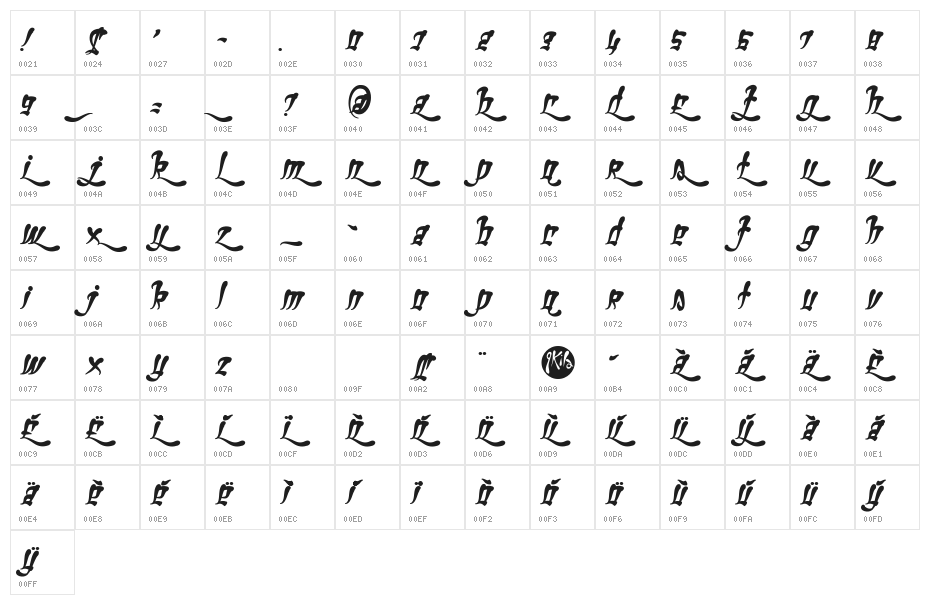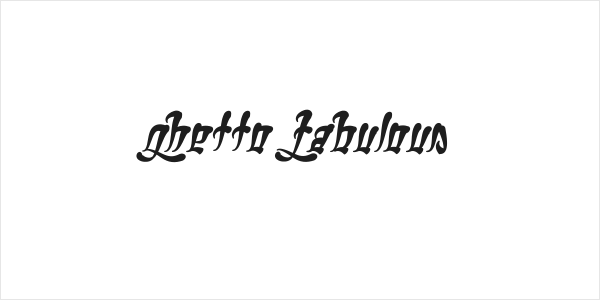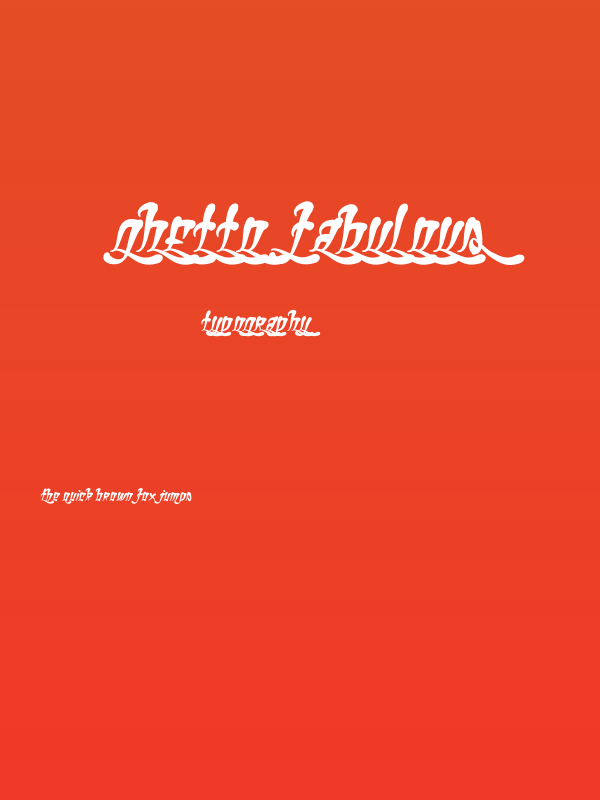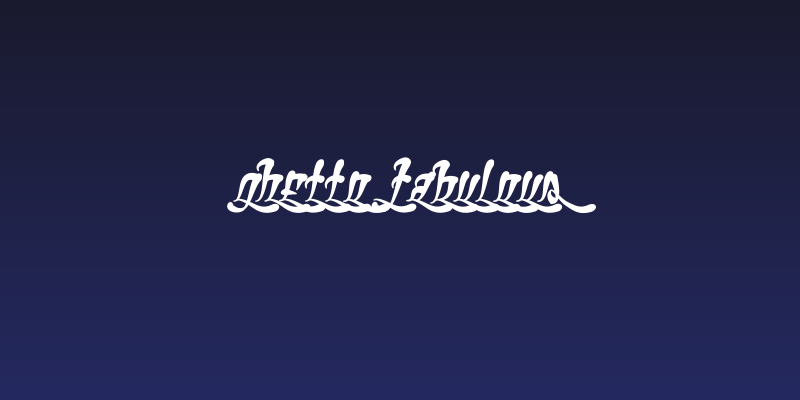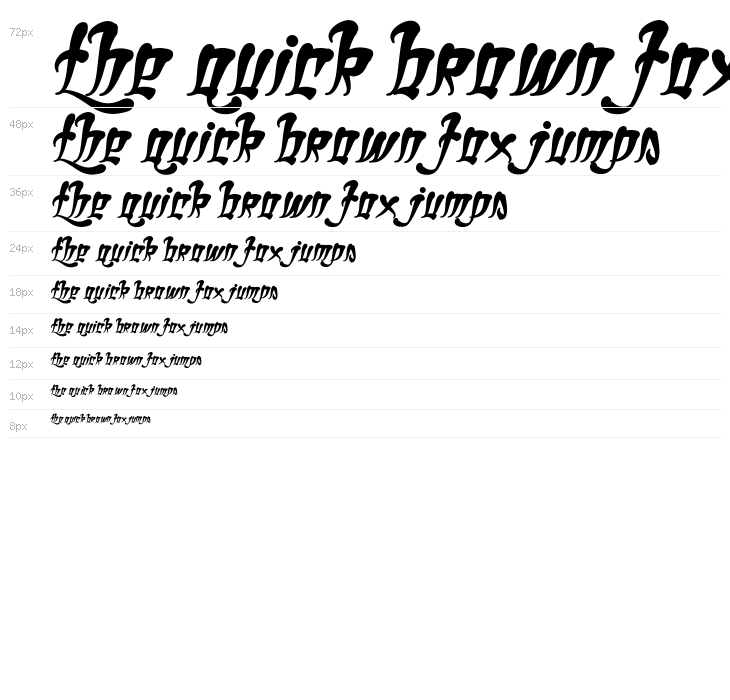
Ghetto Fabulous Font
Ghetto Fabulous Description
This font exudes a bold and dramatic flair, characterized by its intricate and flowing script style. The letters are heavily stylized with exaggerated curves and flourishes, giving it a unique and eye-catching appearance. The uppercase and lowercase letters maintain a consistent style, with a strong emphasis on the vertical strokes, creating a sense of movement and energy. The numbers and special characters are equally ornate, ensuring a cohesive look across all characters. This font is perfect for projects that require a touch of elegance and sophistication, while still maintaining a modern edge.
| Proposed Projects | Ideal for tattoo designs, album covers, fashion branding, and event invitations. |